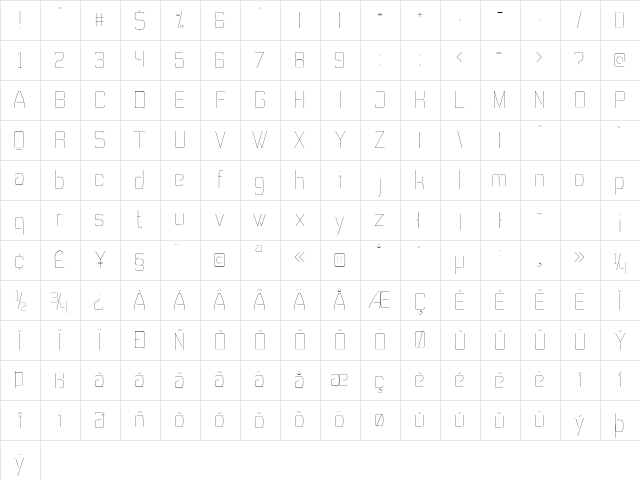
Complete Tevegraphy Light glyph index. Displaying only characters natively supported by Tevegraphy Light font.
Tevegraphy is a composed and adaptable typeface that performs quietly and consistently across a wide range of design contexts. Its slender proportions lend an understated elegance to any composition.